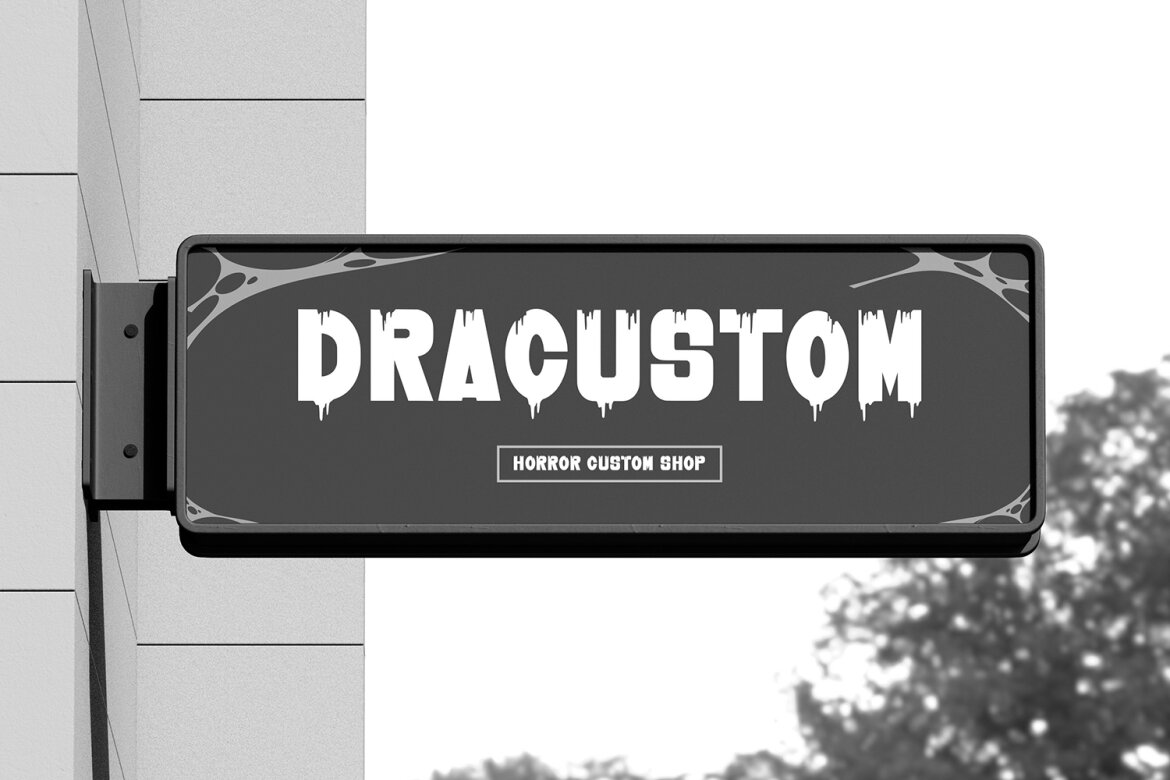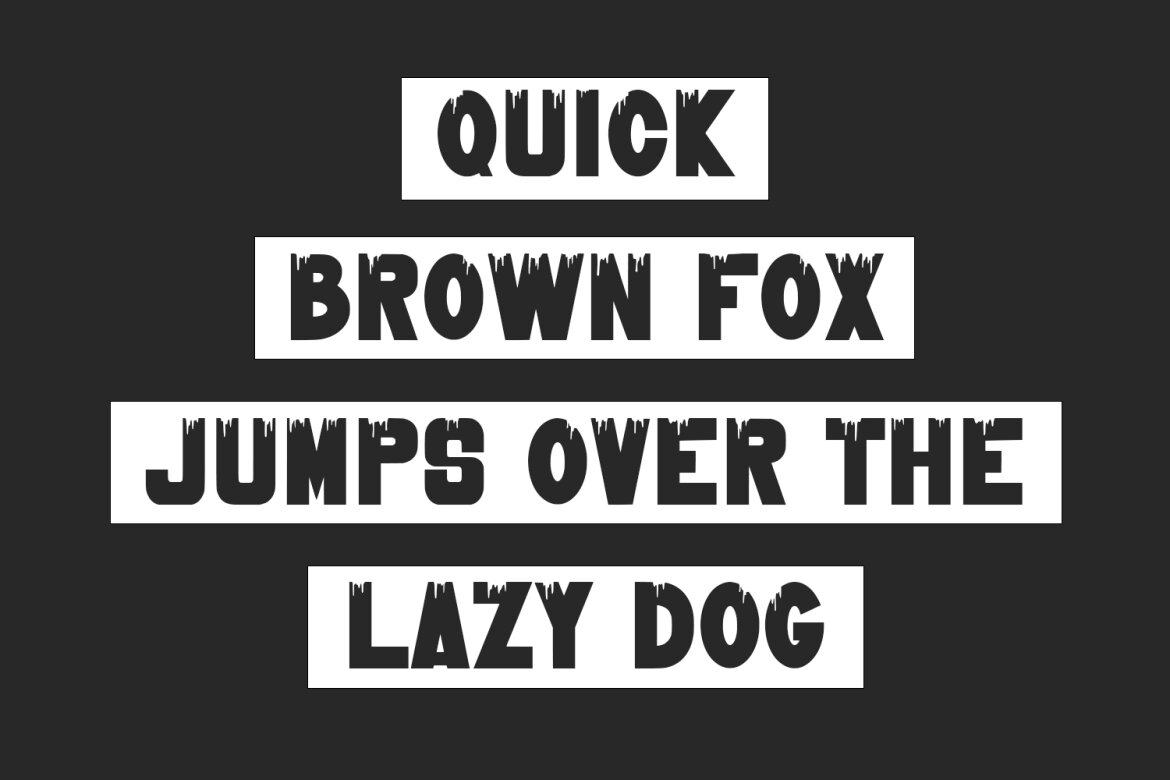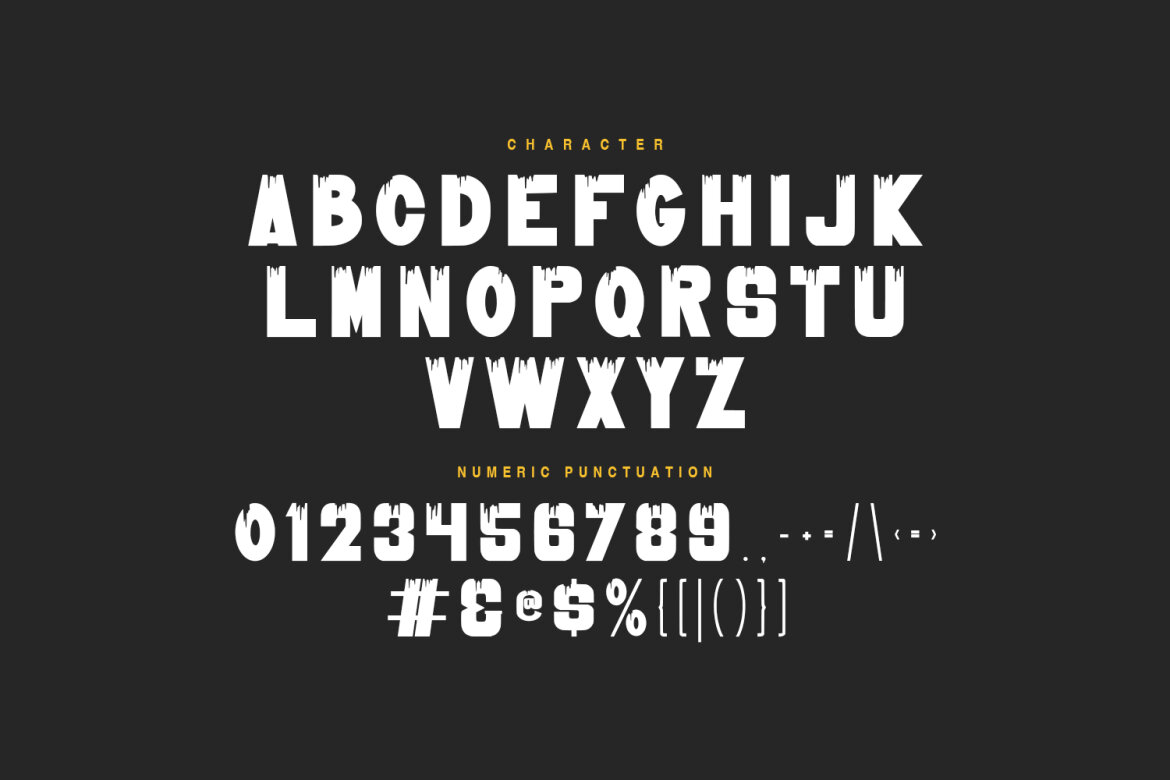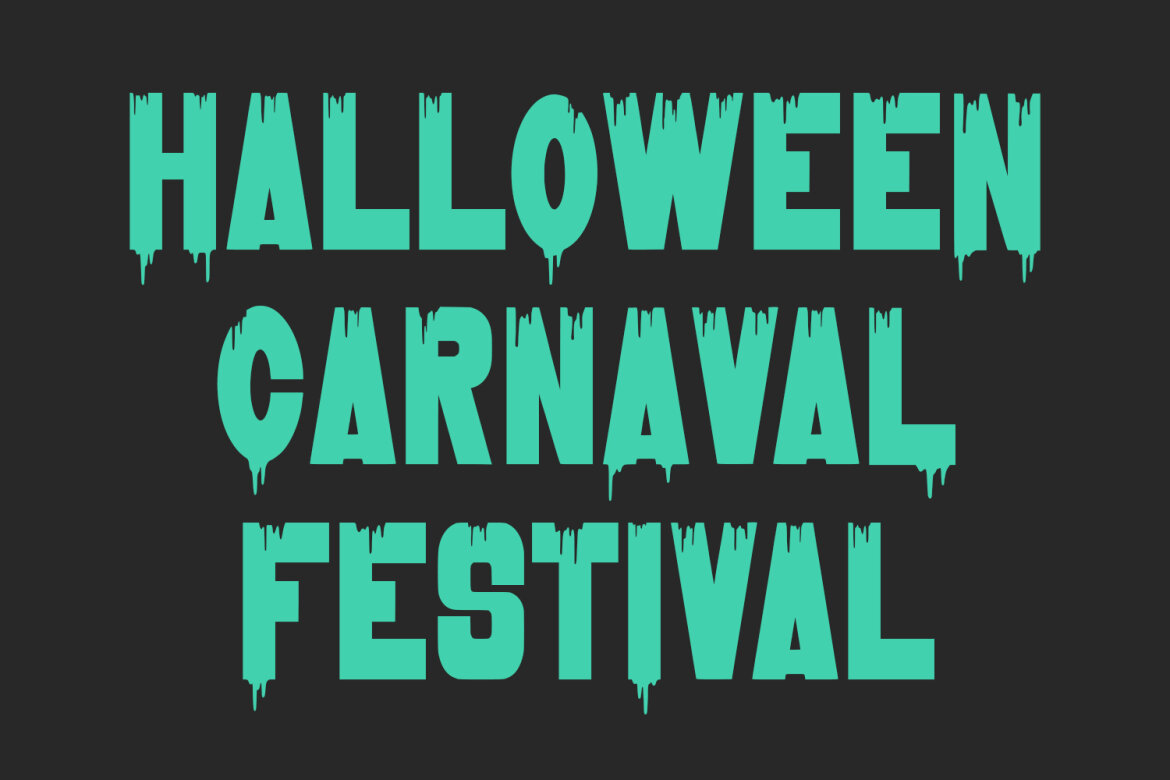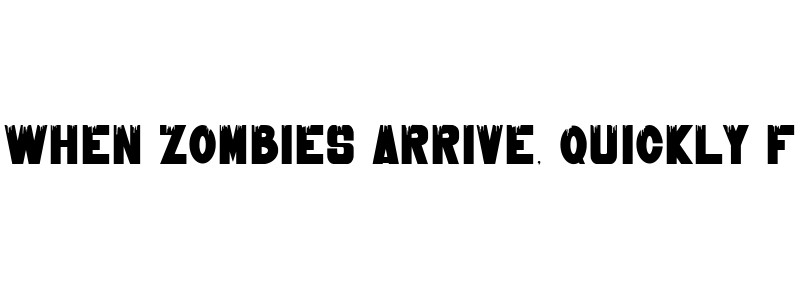
Liqudox Dripping FREE Display Font
Liqudox preview
Liqudox
Unleash the eerie and playful vibes with Liqudox, the ultimate Dripping Sans Display Font. Liqudox is a bold, modern, all-caps sans-serif typeface distinguished by its unique, gooey, dripping effect at the bottom of each letter. This font is perfect for projects that require a sense of fun horror, grunge, or spooky style. Bold, blocky letterforms that ensure high impact and readability even with the dripping effect. Dripping Alternates that allow you to customize the look of each word, adding flexibility and extra visual interest.
• Numbers and punctuation
• Multilingual Support
• Alternate Style